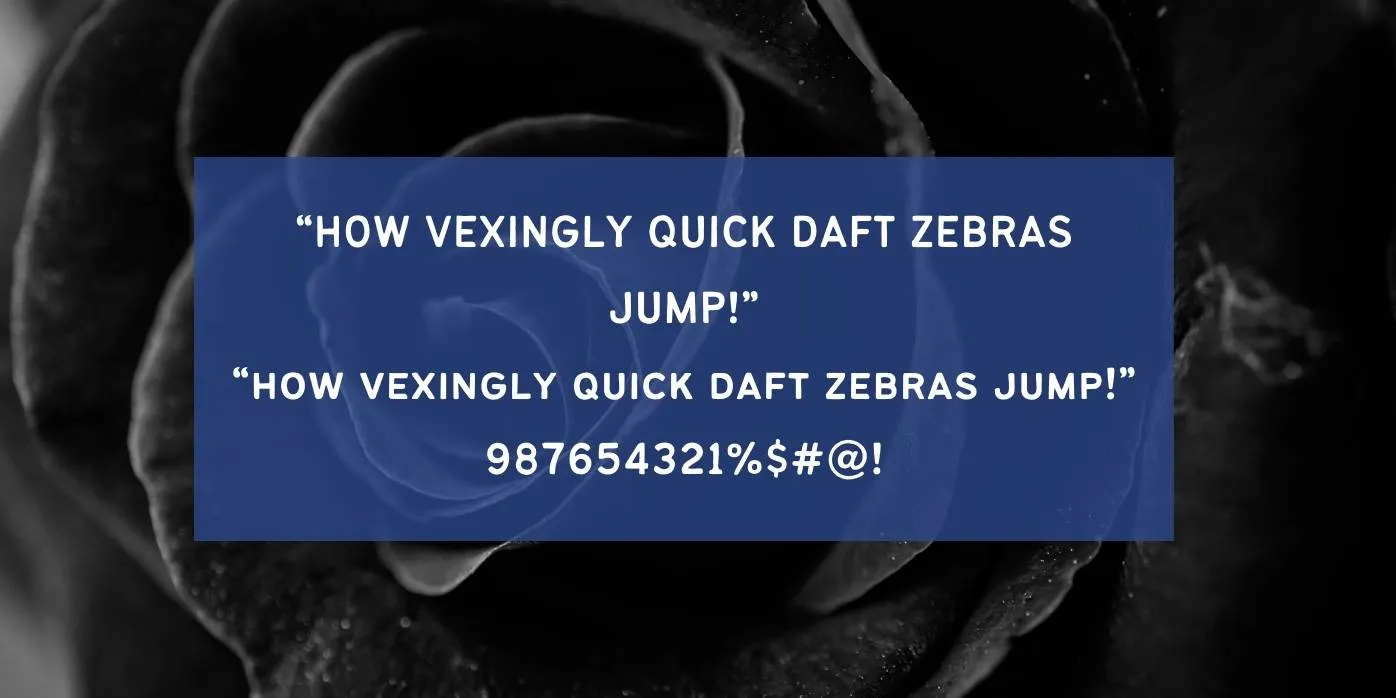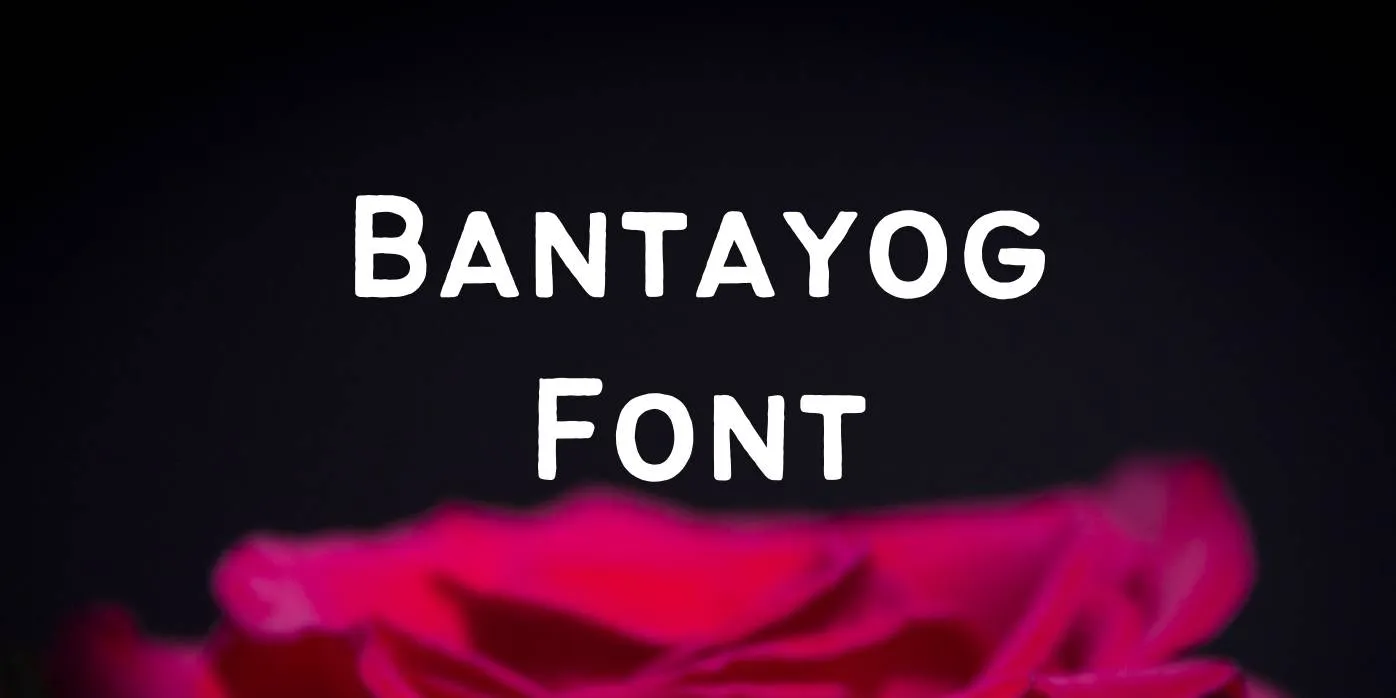
Bantayog Font
Today, we present a popular typeface that is known as Bantayog Font. This font family was developed and published by John David Maza. This classy typeface consists of the display font family. This typeface has neat and clean textures that increase its worth.
You can also use its alternative supreme font which is best for all creative designs. Bantayog Font is a simple yet stylish typeface that is perfect for any project. Its unique design makes it stand out from other Display fonts. Additionally, this typeface is extremely versatile and can be used for both headlines and body text.